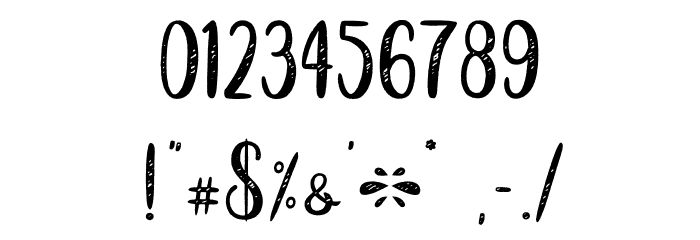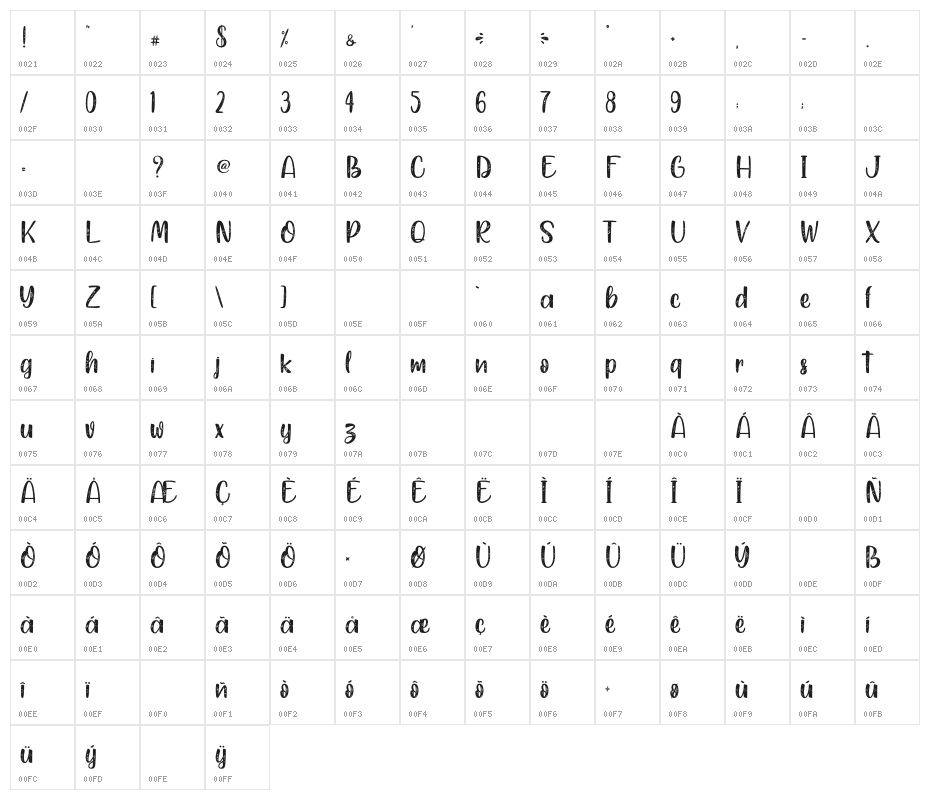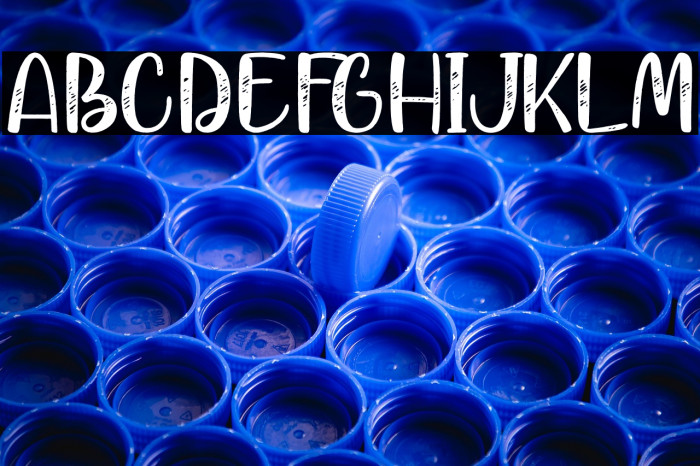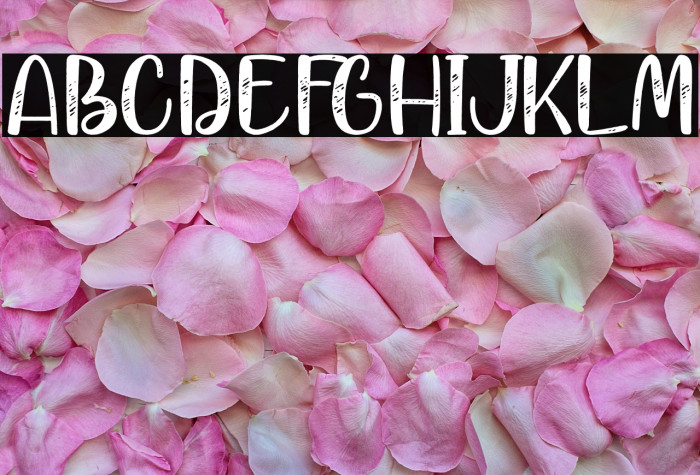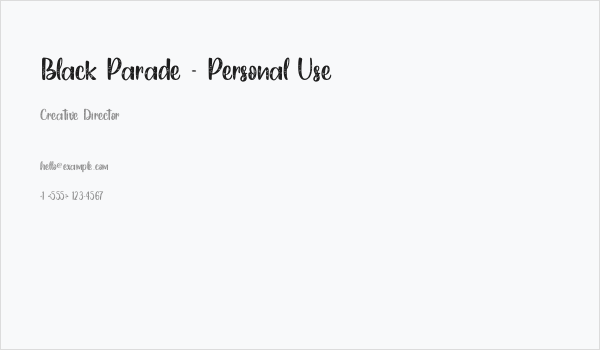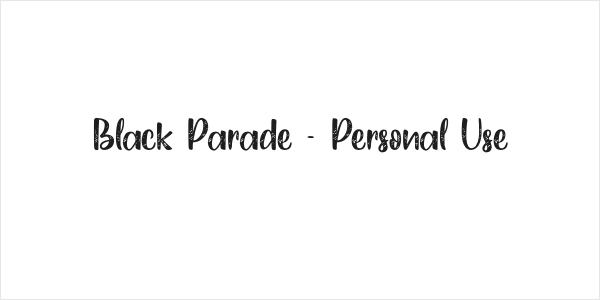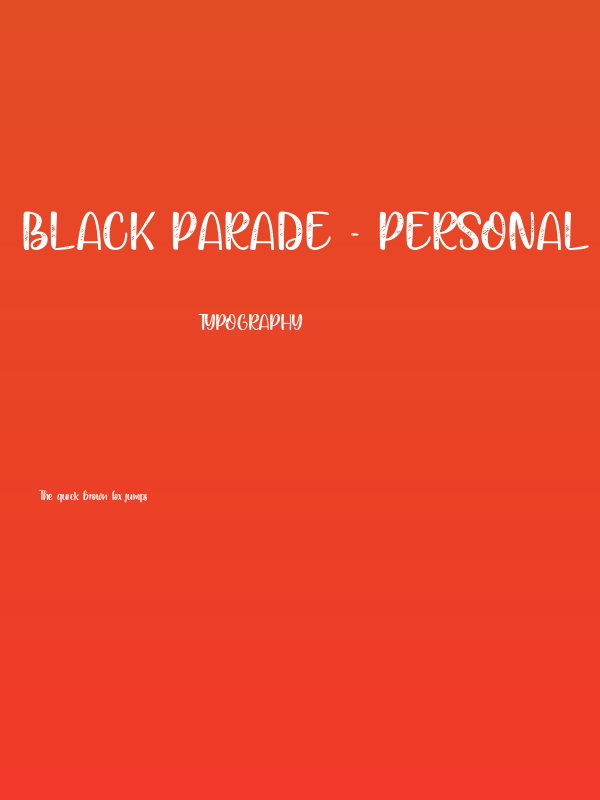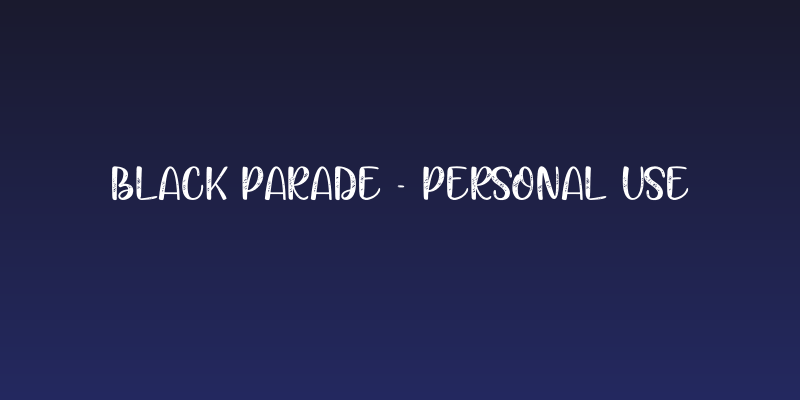
Black Parade - Personal Use Font
Black Parade - Personal Use Description
This font features a bold, hand-drawn style with a playful and artistic flair. The letters have a textured appearance, giving them a slightly distressed look that adds character and uniqueness. The uppercase and lowercase letters are consistent in style, maintaining a casual yet impactful presence. The numerals and special characters follow the same design, ensuring a cohesive look across all text elements. This font's distinctive style makes it ideal for creative projects that require a touch of personality and charm.
| Proposed Projects | Ideal for posters, greeting cards, social media graphics, and branding projects that require a playful and artistic touch. |